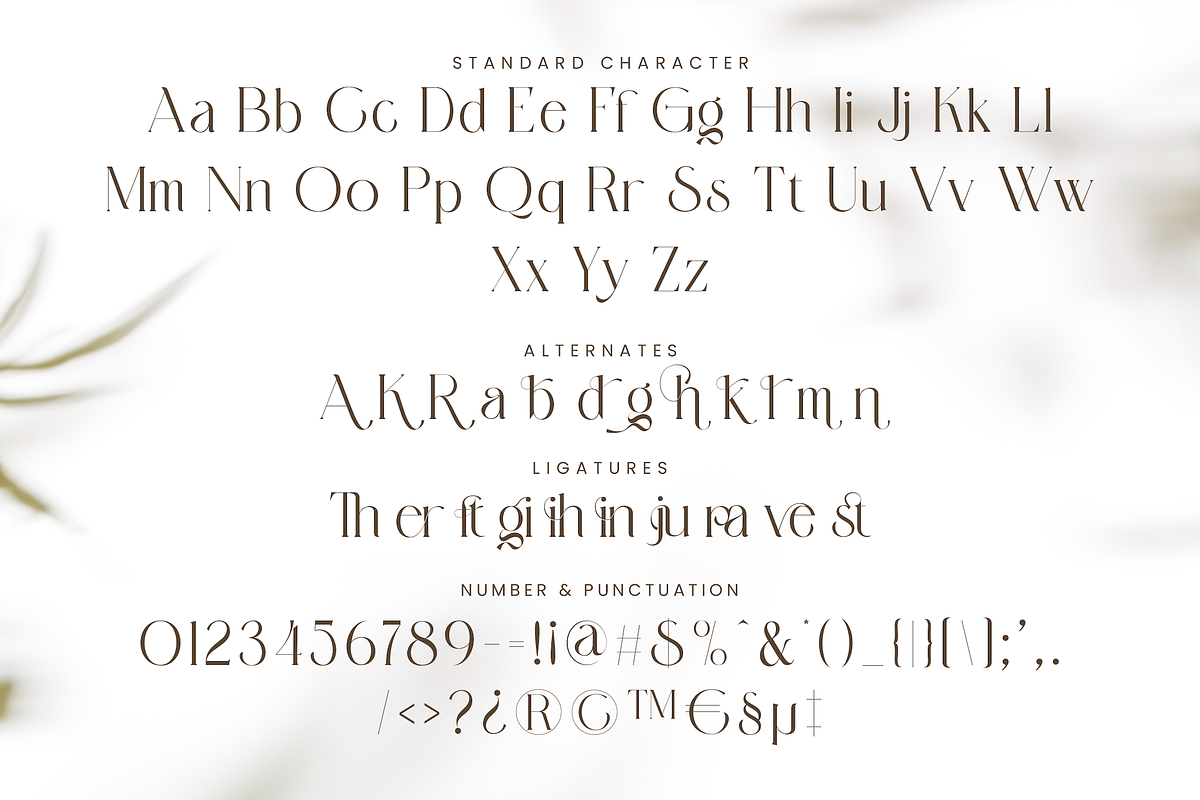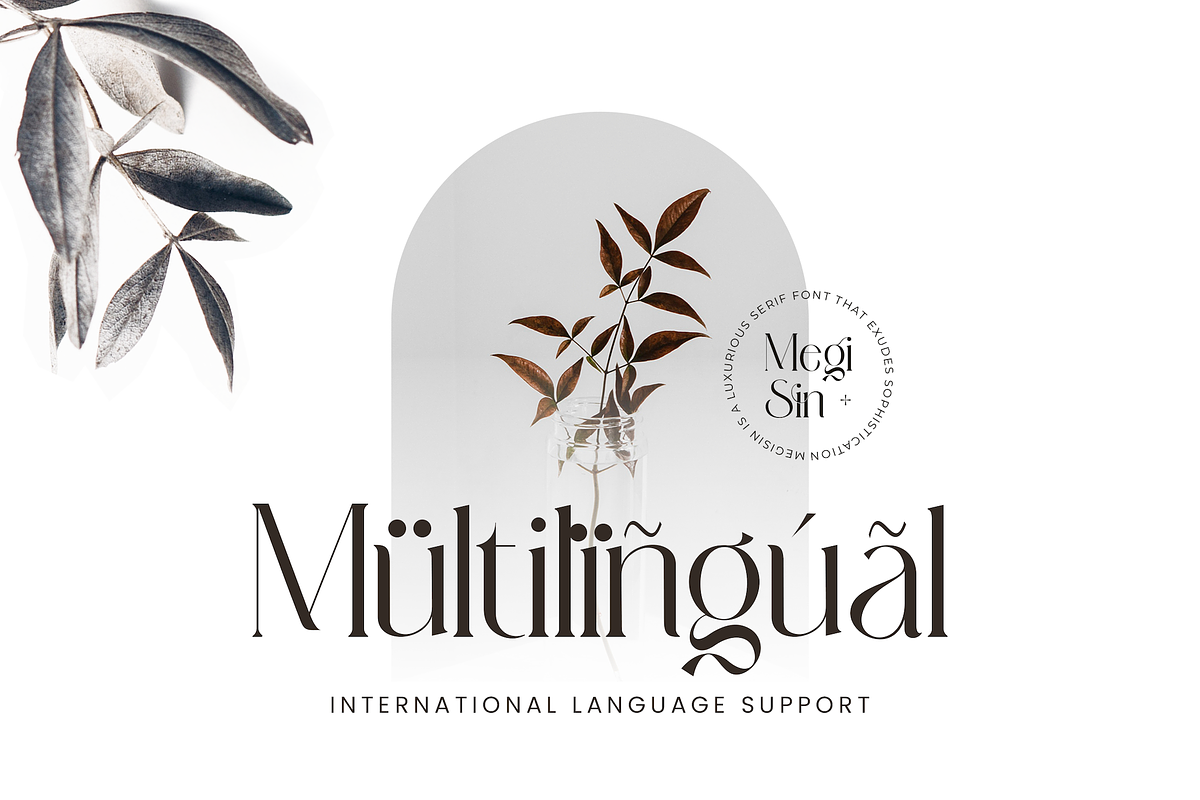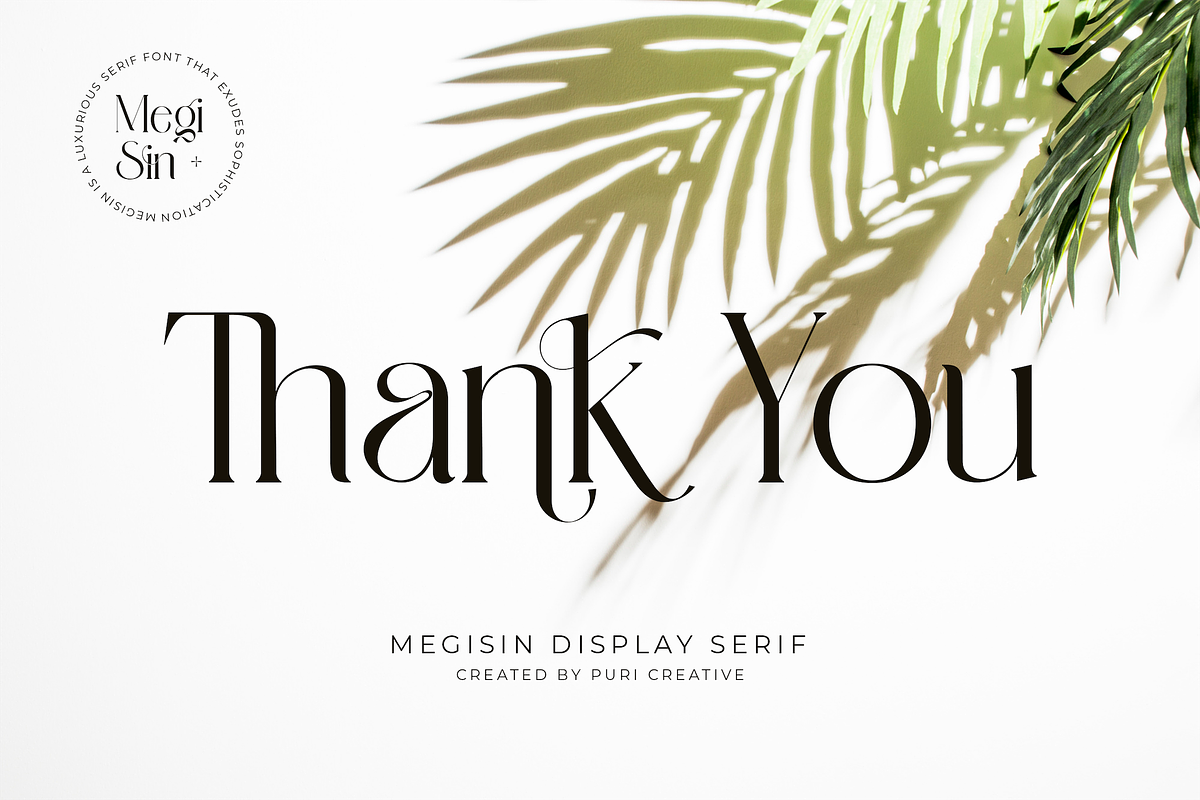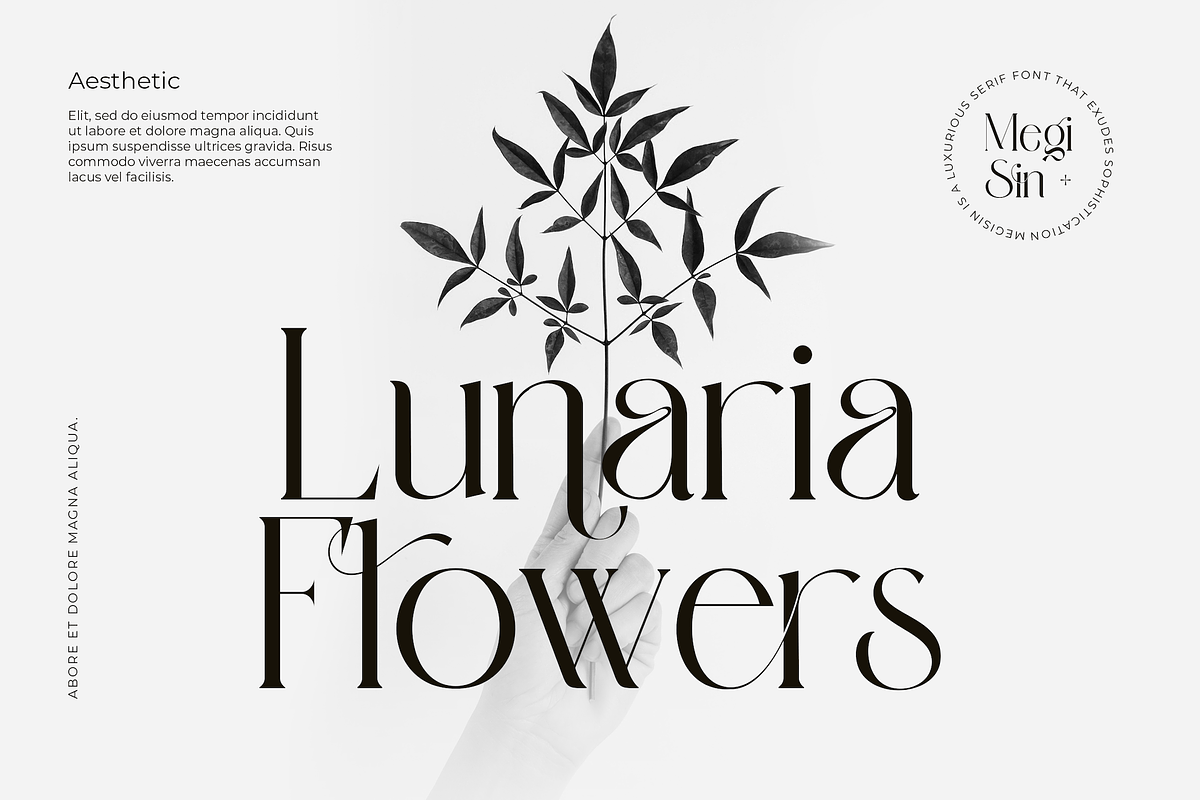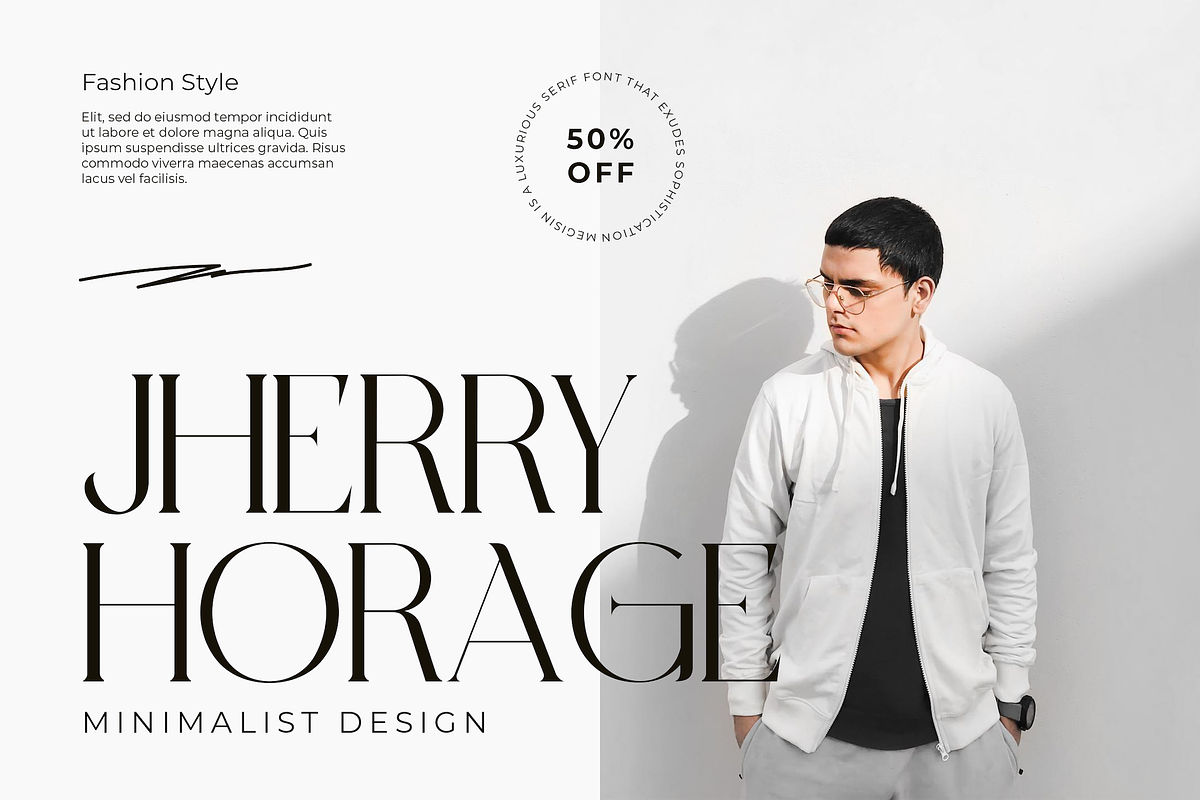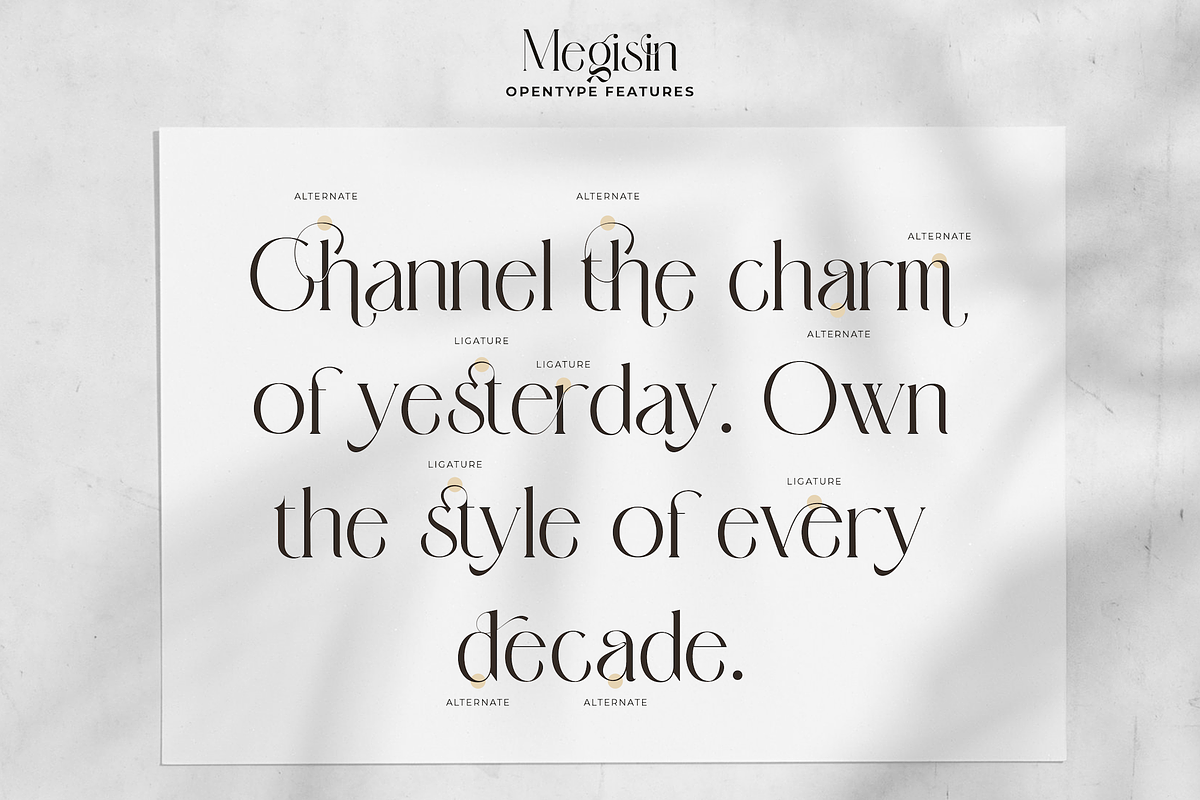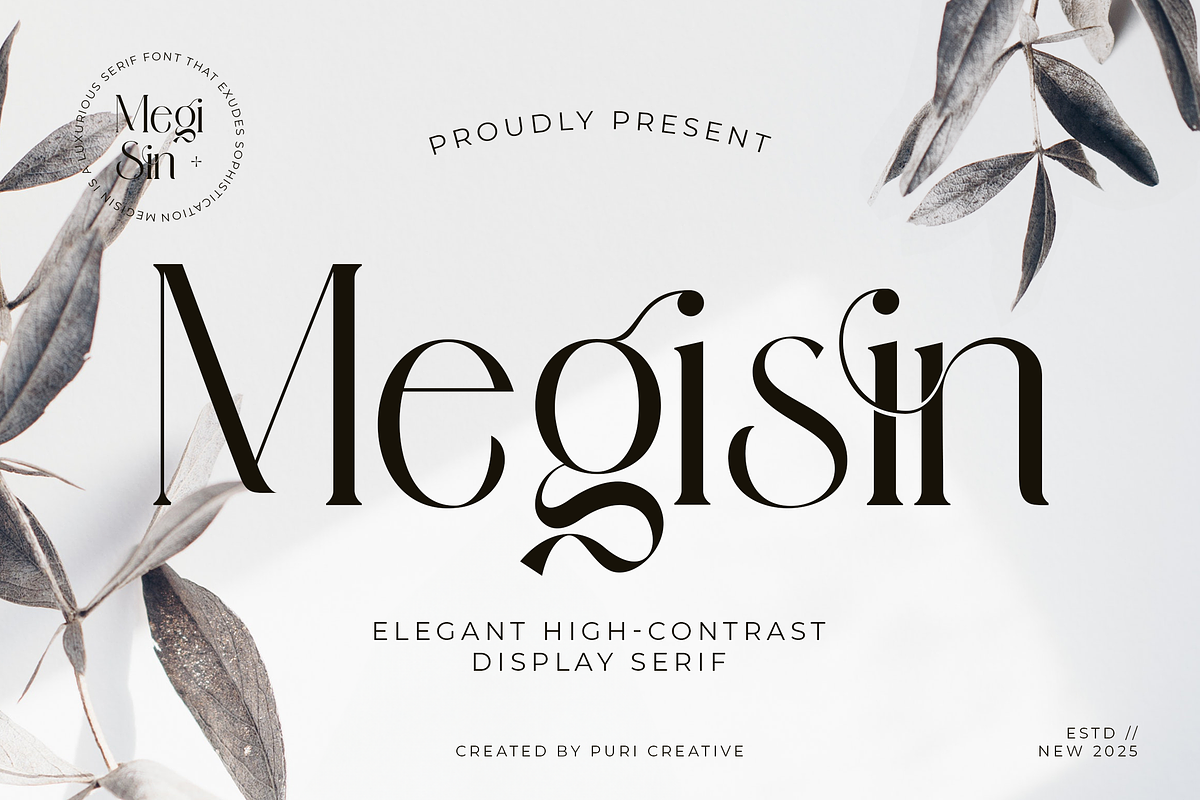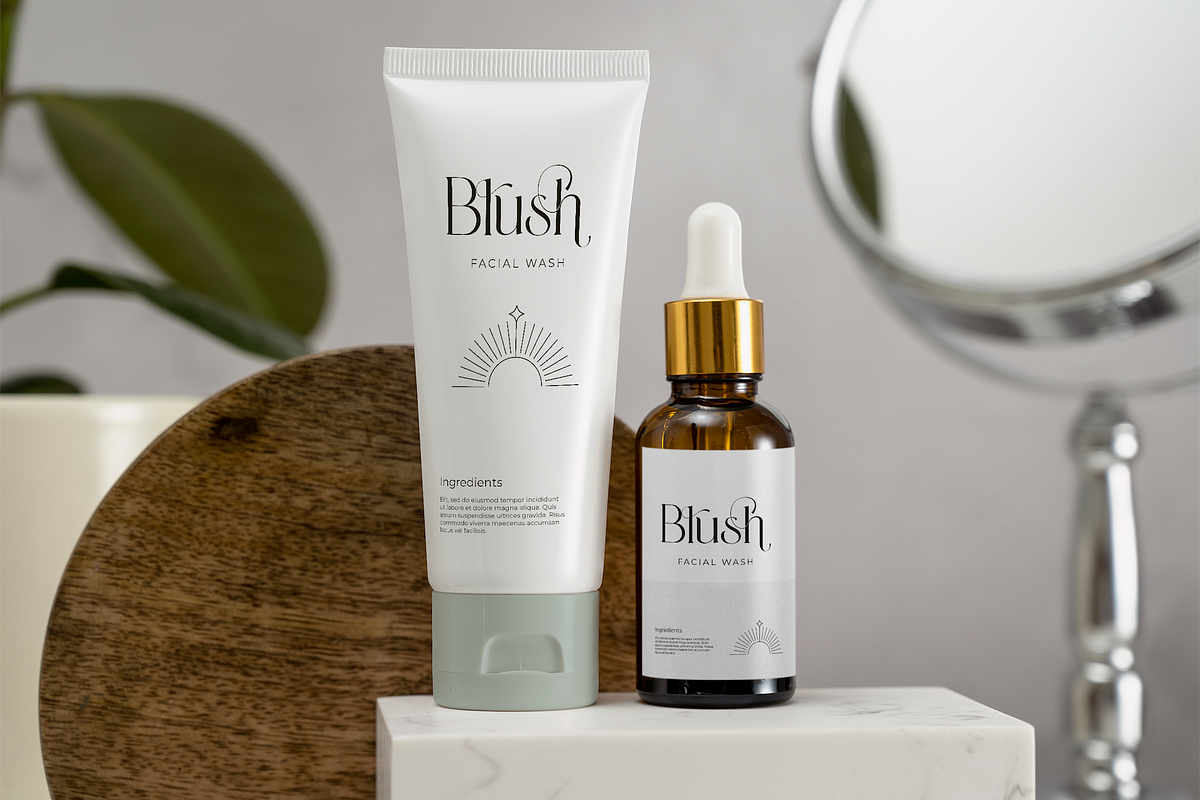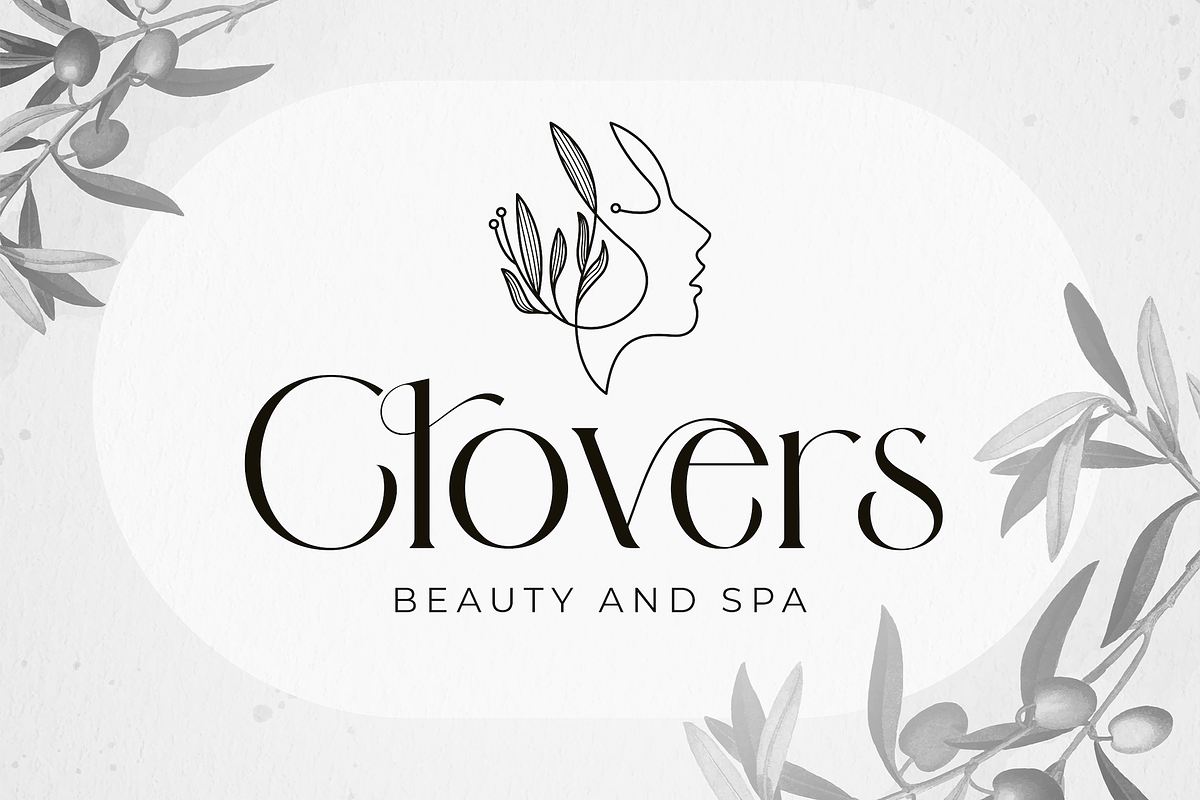
Megisin - Elegant Display Serif Font
Megisin is a modern, elegant and classy serif typeface, best used as a display for headings, logos, branding, magazines, product packaging and invitations. Megisin come with clean lines and smooth curves give any project an extra touch of class. This font is PUA encoded, which means you can access all of the glyphs with ease!